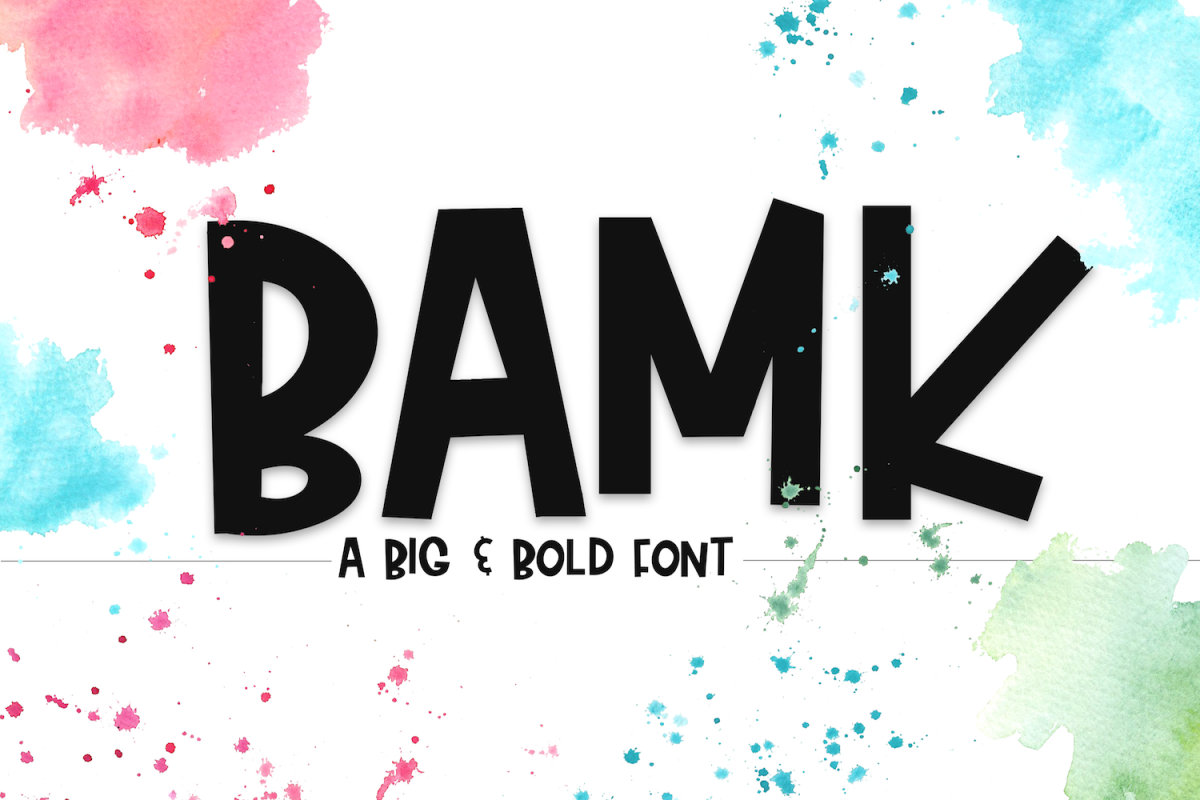
BAMK - A Bold Handwritten Font
Bamk
BAMK is a fun handwritten font with bold letters.
*This is an all caps font*
This font is perfect for quotes, headings, designs, logos, invitations and more!